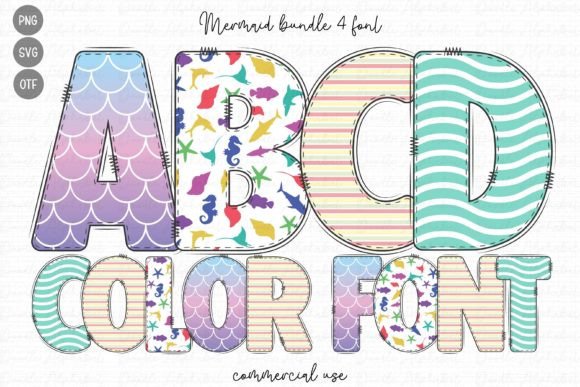
Introducing Mermaid Font: the perfect decorative font for all your creative needs! Designed by the talented Phongsakon Phonkhammak, this font is guaranteed to add a touch of youth and joy to any design project.
Are you planning a party or a swimming gathering? Look no further! Mermaid Font is the ideal choice to elevate your party invitations and bring a sense of fun and excitement to your event. With its cool and cute appearance, this font will capture the attention of your guests and create a memorable experience.
But that's not all - Mermaid Font is also the go-to choice for cake topper creations with Cricut. The black version of this font is fully compatible with Cricut Design Space and other cutting machines, allowing you to effortlessly bring your cake designs to life. Imagine the delight on everyone's faces when they see your beautifully crafted cake toppers!
For the design enthusiasts out there, we have a special treat. The color version of Mermaid Font is a true gem, but please note that it requires certain design programs to unleash its full potential. PhotoShop, Illustrator, Silhouette, and Inkscape are just a few of the programs that can make the most of this vibrant and eye-catching font.
So why wait? Dive into the enchanting world of Mermaid Font and let your creativity soar. Whether you're designing invitations, creating cake toppers, or simply looking to add a touch of whimsy to your designs, this font is a must-have.
Unlock the magic of Mermaid Font today and watch as your designs come to life with youthful exuberance and joy!